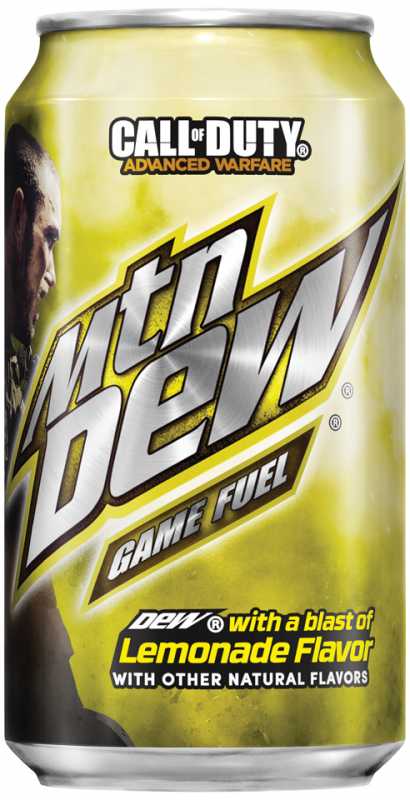
Can anyone tell me what fonts these might be. At the bottom of the can, ("with a blast of Lemonade Flavor") and ("with other natural flavors") FMF isn't finding it for me. :(
You are right it seems that those fonts are not (yet) in our database.
"Lemonade Flavor" must be "RBNo3.1" (Ultra Italic) by Rene Bieder [2011]:
A slanted version of this could be fine)
I'm not sure I can find something for "WITH OTHER NATURAL FLAVORS".
The image quality is not very good (instances of |R| look very different if you check the leg).
That said, "Sofia Pro (Bold)" by Olivier Gourvat looks very close and it can be a good substitute: